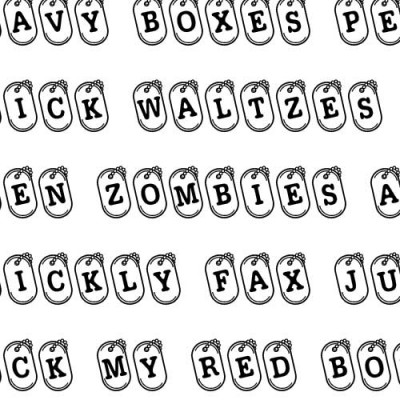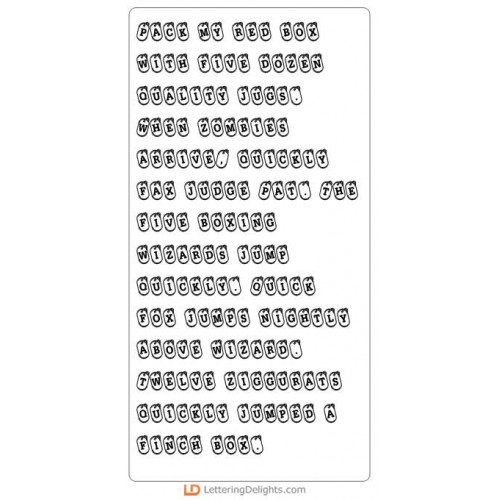
LD Dog Tags - Font
All military personel are required to wear their dog tags. This is their form of identification. Each letter of this font is embossed on a "dog tag"